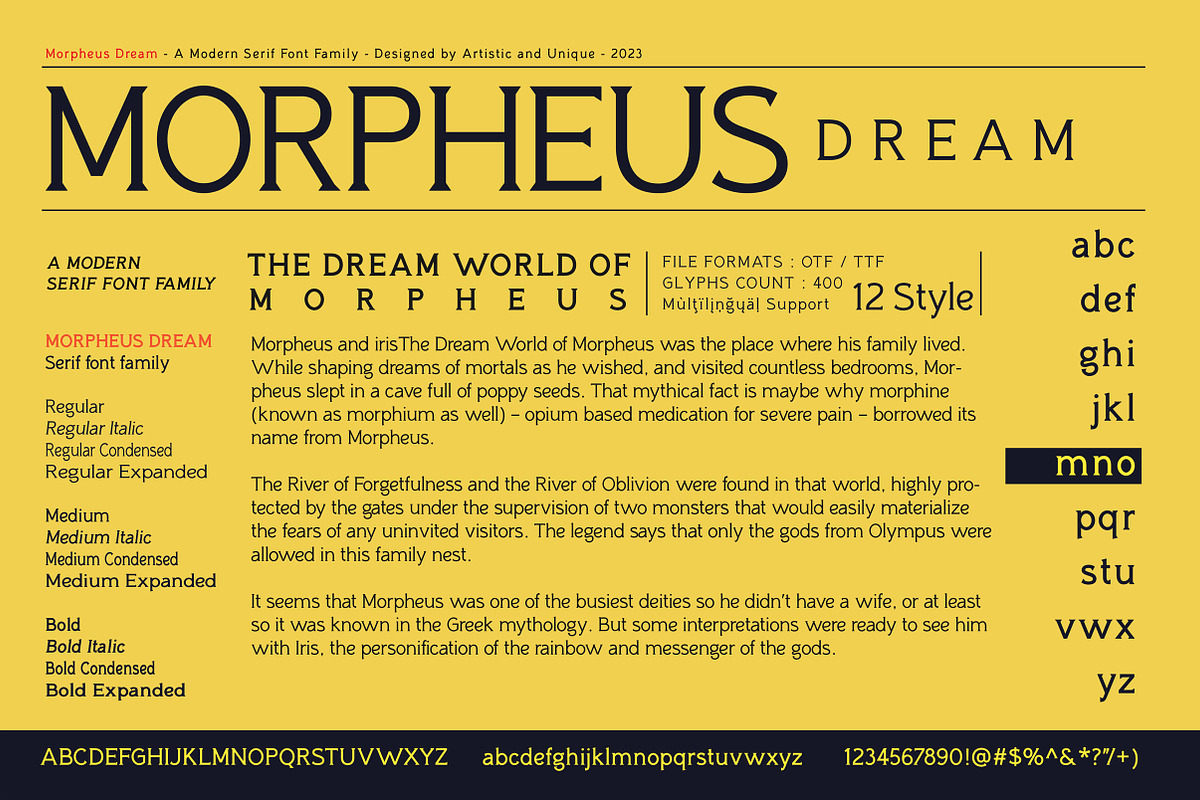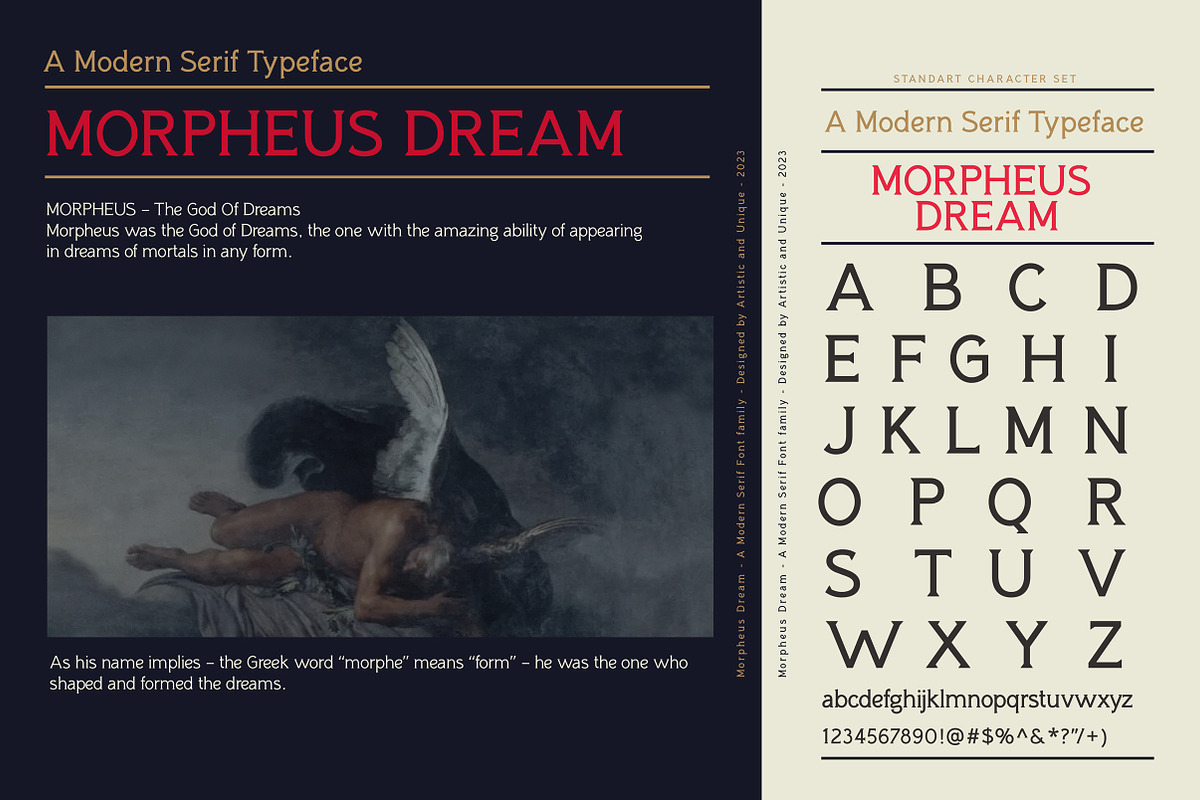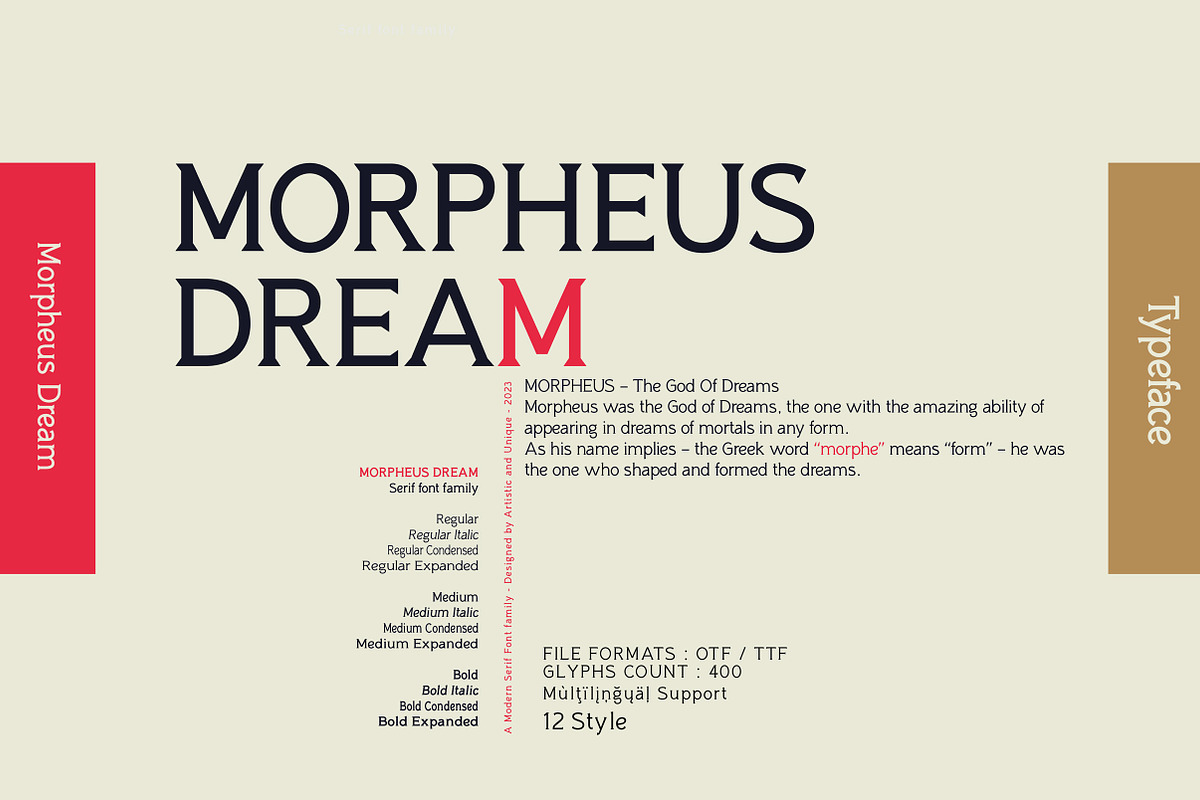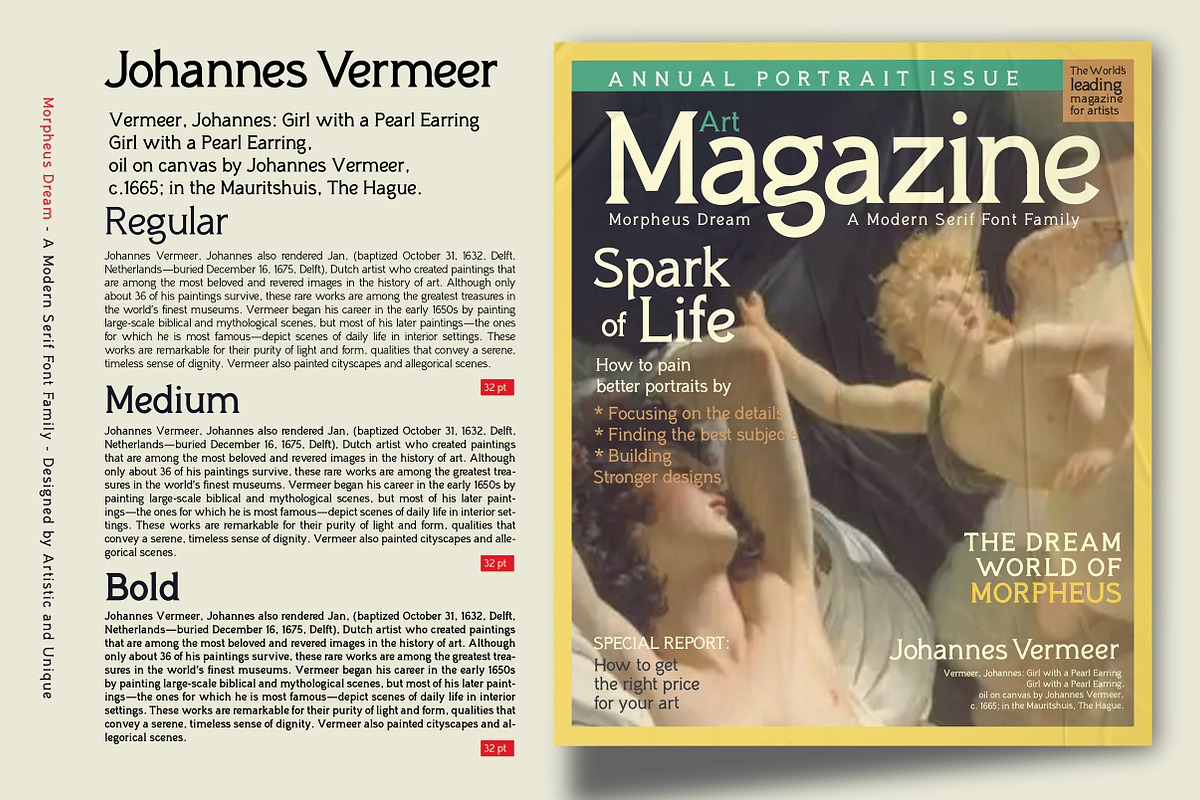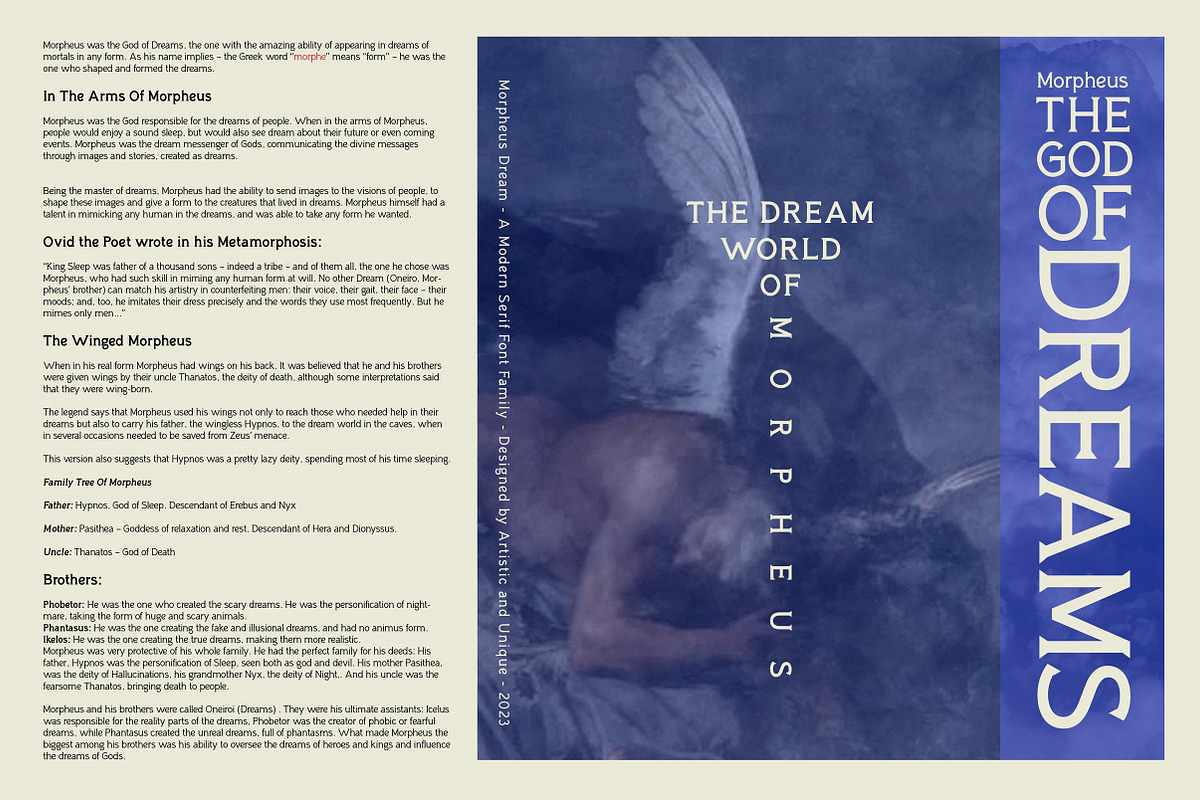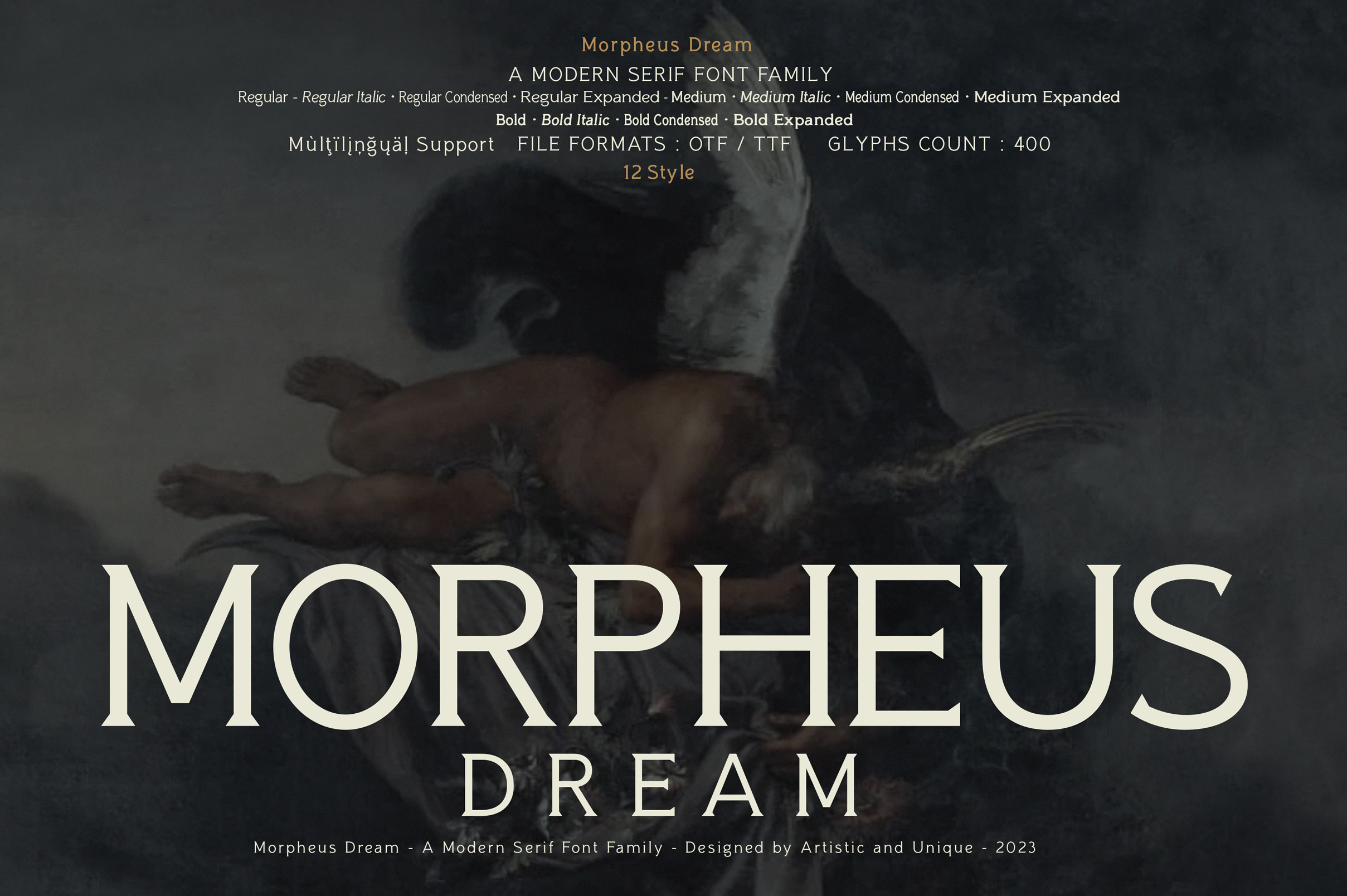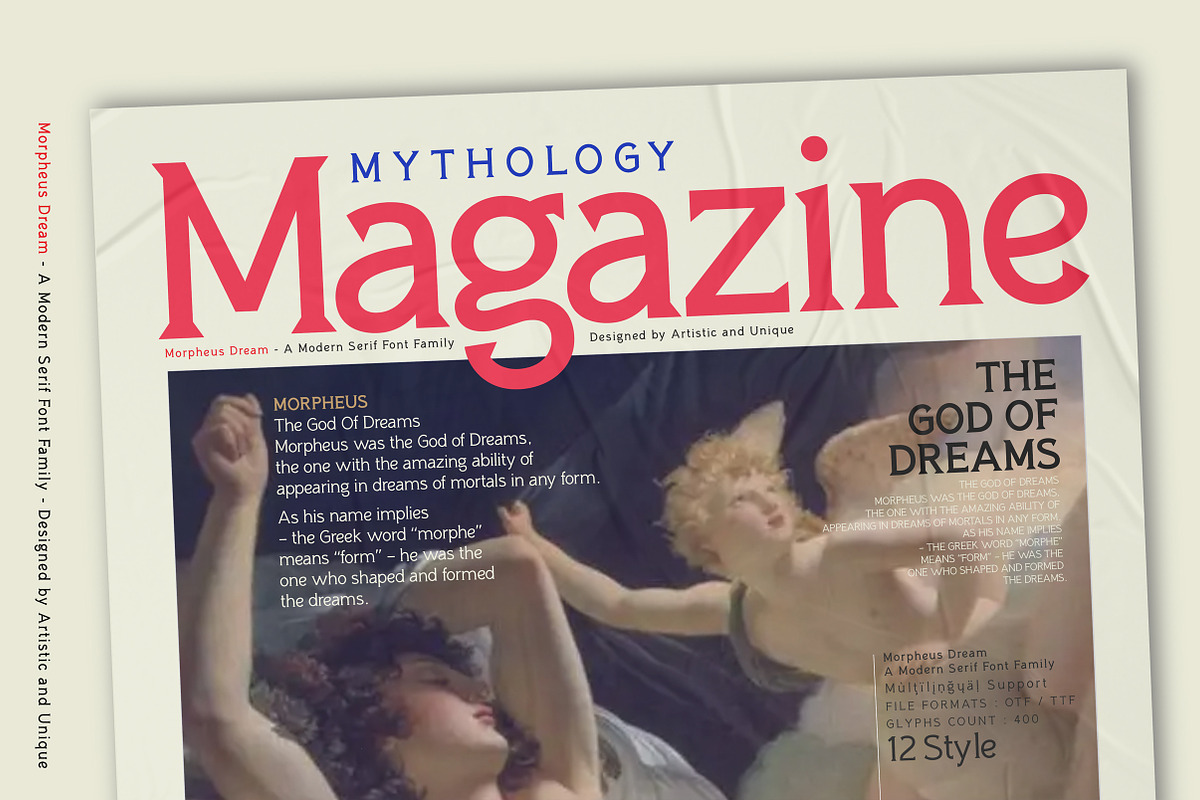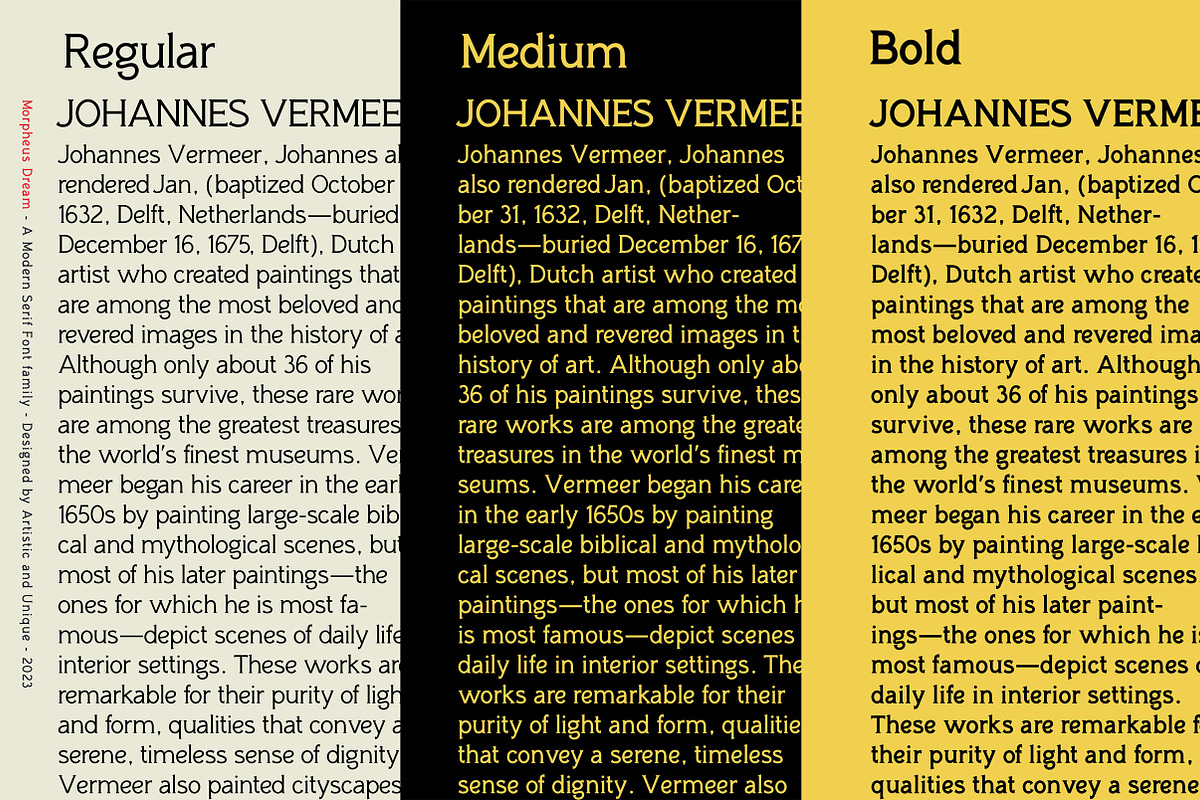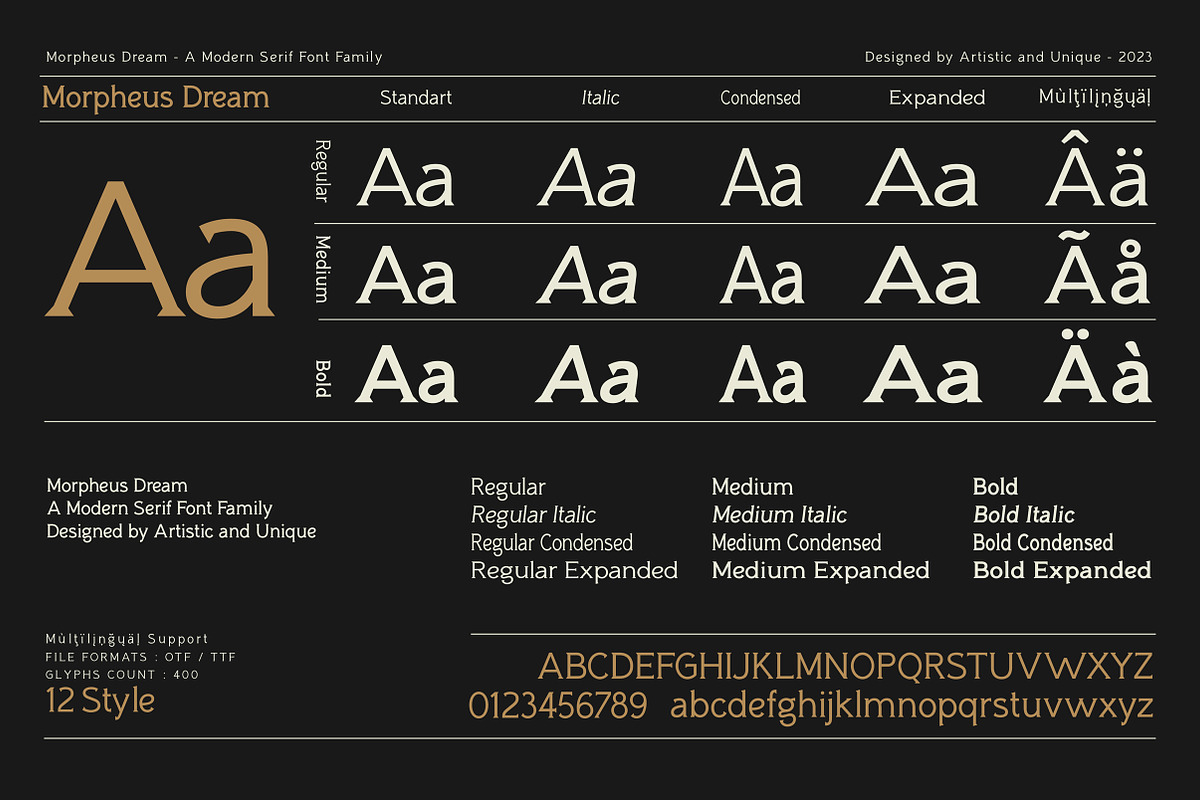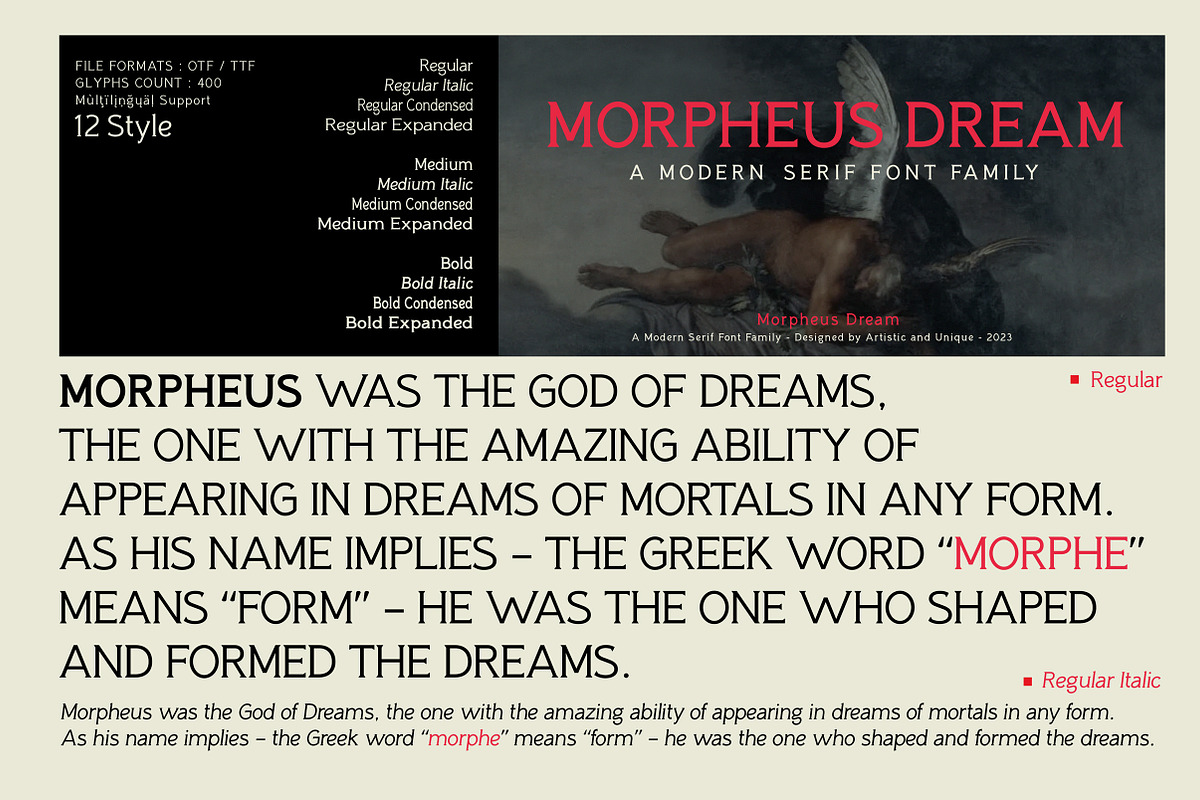
Morpheus Dream - Serif font family
Morpheus Dream - Serif font family - Multilingual - 12 Styles
Morpheus Dream Serif font family help you develop your creative projects with its 12 styles and multilingual supports. It was inspiration from Greek mythology. The characters that make up its structure were influenced by the carved letters in the old stone inscriptions.
This font comes with uppercase, lowercase, punctuation, symbols and numbers, ligatures and multilingual supports.
Ideal for books and magazines, editorials, headlines, websites, logos, branding, advertising and more. This font family can meet your needs in all creative projects, modern and classic.